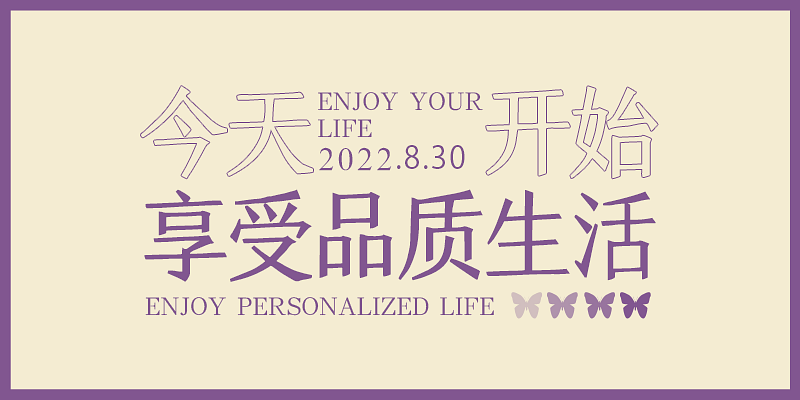
HelloFont ID Ku Hei Ti Font Free Download is a clean and modern Chinese-inspired typeface that combines the beauty of traditional brush strokes with a sleek, contemporary design. Featuring strong, balanced strokes and clear character forms, this font is perfect for projects such as branding, signage, packaging, editorial design, and any design requiring a sophisticated yet readable typeface.
The HelloFont ID Ku Hei Ti Font is designed to offer excellent legibility, making it suitable for both digital and print applications. Its modern aesthetic, combined with subtle traditional influences, allows it to work beautifully across a wide range of design styles, from corporate to artistic projects.